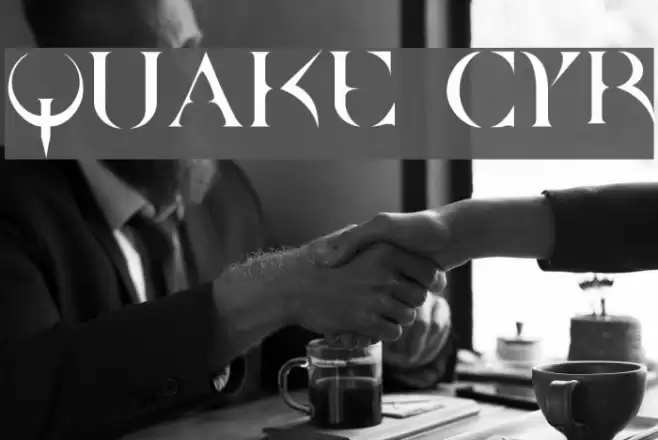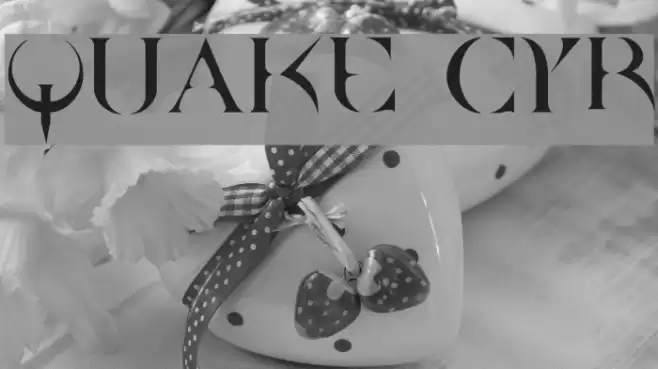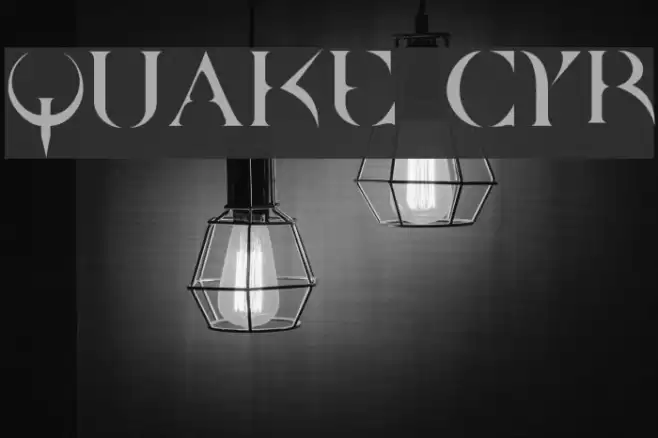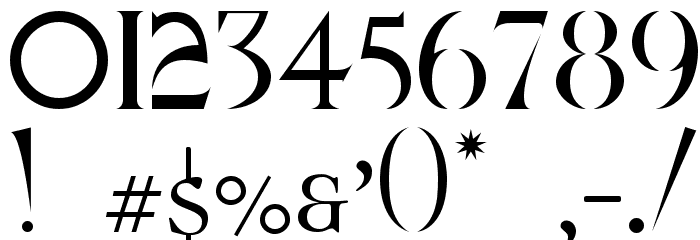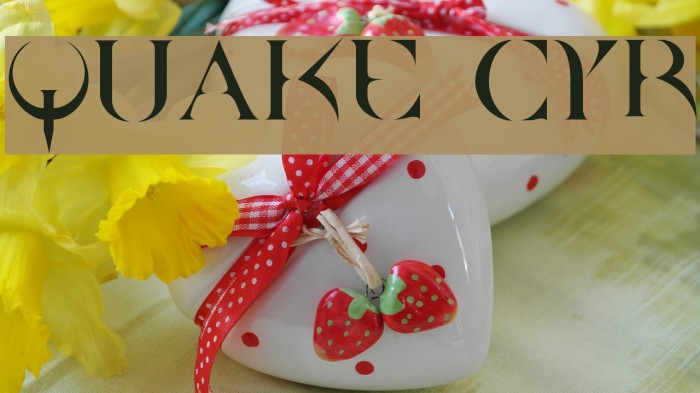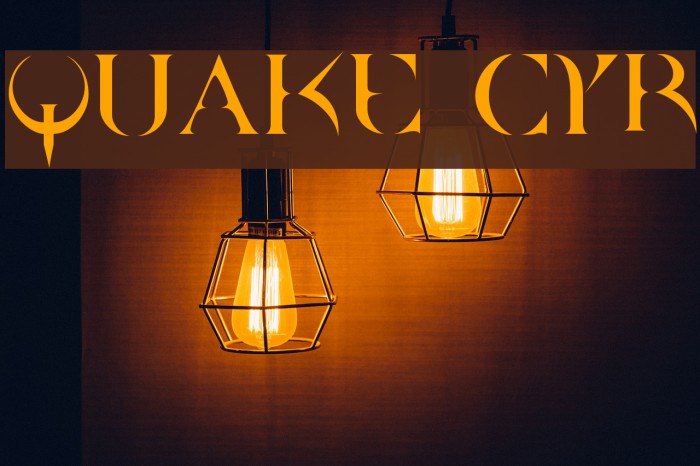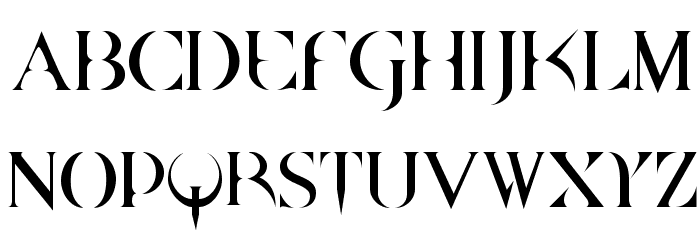
Quake Cyr Font
Quake Cyr Description
This font features a bold and striking design with sharp, angular serifs and a distinct geometric influence. The uppercase letters are particularly notable for their unique cut-out shapes, giving them a futuristic and edgy appearance. The lowercase letters maintain a consistent style, with a strong emphasis on vertical lines and sharp angles. The numerals are equally bold, with a consistent weight and style that complements the alphabetic characters. Special characters are designed with the same attention to detail, featuring sharp edges and a cohesive aesthetic. This font is ideal for projects that require a modern and impactful look, such as video game titles, movie posters, or branding for tech companies.
A bold, angular serif font with a futuristic and edgy design from Typewriter fonts.
- Proposed Projects: Ideal for video game titles, movie posters, tech branding, and any project needing a modern, impactful look.